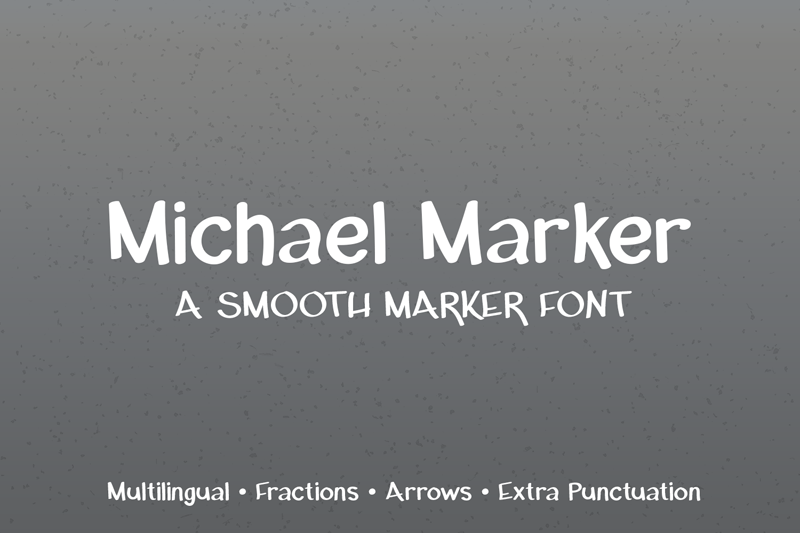
Michael Marker font is a bold handwritten font. Multilingual support, OTF/TTF/WOFF and WOFF2 provided. The full version includes a full set of uppercase, lowercase, numerals,fractions and punctuation. Purchase a commercial use license on my website here: https://kristyhatswell.com/product/michael-marker/ Or on Creative Market here: https://crmrkt.com/QkR2pD |